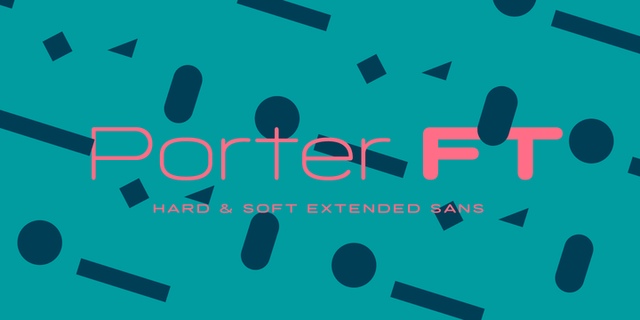
Porter FT Font
Porter FT Font is ideal for luxury hospitality branding, premium service communications, upscale hotel materials, concierge service presentations, five-star restaurant menus, exclusive travel agencies, high-end customer service training, distinguished guest relations, personalized service offerings, and sophisticated hospitality industry communications.
What makes Porter FT Font so exciting is its exceptional embodiment of service excellence and hospitality sophistication that captures the refined professionalism of premium customer service through elegantly crafted typography designed for the hospitality industry. This professionally engineered typeface features distinguished letterforms with service-oriented proportions and hospitality-inspired character variations that immediately convey reliability, attention to detail, and the exceptional standard of premium service delivery. The font's service-focused construction and hospitality aesthetic create an instant sense of professional excellence and customer-centered dedication, making it ideal for projects that need to communicate service quality, hospitality expertise, and the transformative power of exceptional customer care to audiences seeking premium service experiences and meaningful hospitality connections.
The Porter FT Font family typically includes multiple professional weights and service styles, often featuring light, regular, and bold variations along with elegantly crafted italic versions. Hospitality-focused font collections frequently offer additional service elements such as hospitality symbols, premium ornaments, and service-oriented decorations that enhance the professional aesthetic and provide designers with comprehensive tools for creating genuinely service-focused and hospitality-excellence communications.
The service nature of Porter FT Font makes it particularly effective for targeting demographics that value exceptional customer service and premium hospitality experiences in their travel and lifestyle choices. Hospitality marketers and service industry professionals will find this font especially valuable for materials that must establish immediate service credibility and connect with audiences seeking authentic premium service experiences and meaningful hospitality excellence.
What sets Porter FT Font apart is its ability to convey service professionalism while maintaining the warmth necessary for effective hospitality and customer service communication. This balanced characteristic makes it suitable for both formal service protocol applications and welcoming hospitality contexts where projecting professional competence and maintaining customer-friendly appeal must work together harmoniously.
Professional designers recognize that Porter FT Font brings invaluable hospitality credibility to projects across industries including hotel management, premium services, customer relations, and luxury hospitality. Its service character and professional appeal make it essential for organizations whose mission centers on delivering exceptional customer experiences, advancing service excellence, and creating meaningful connections between professional service delivery and customer satisfaction.
The thoughtfully crafted service authenticity of Porter FT Font ensures consistent hospitality messaging across all service-focused communication applications while honoring the fundamental importance of professional excellence and customer care in premium hospitality experiences.